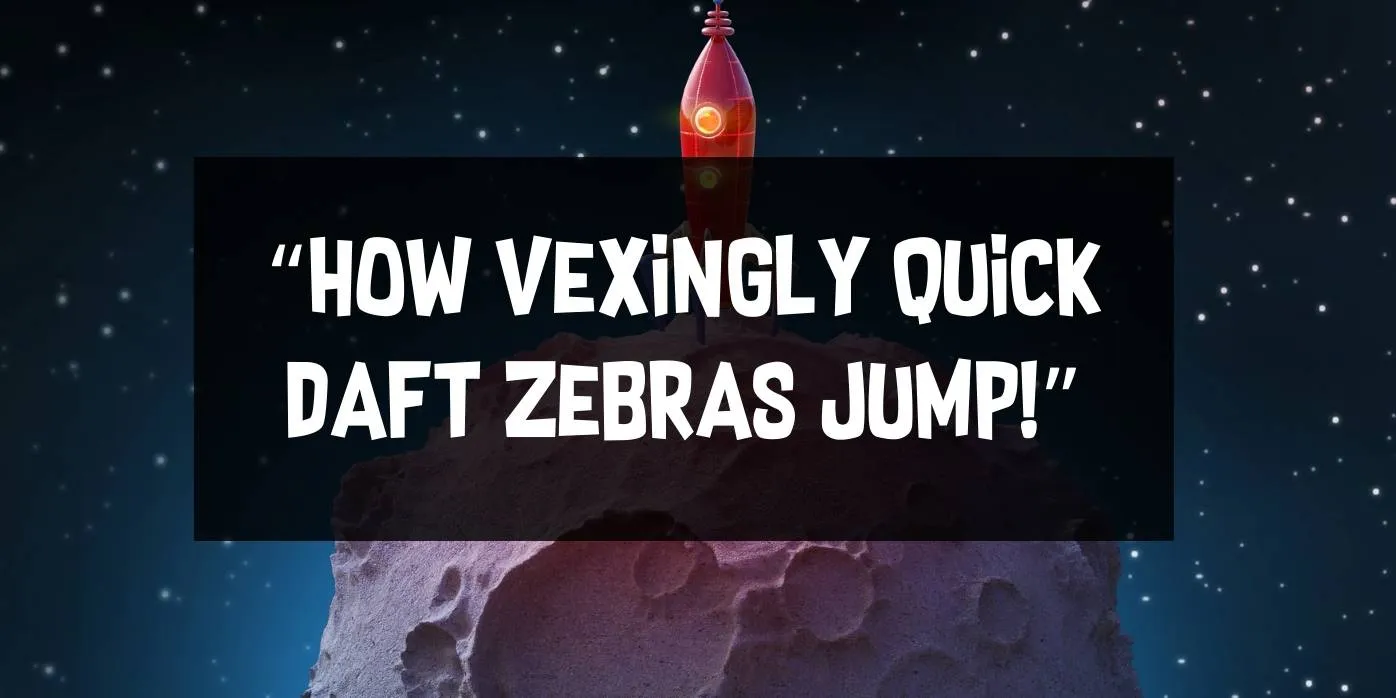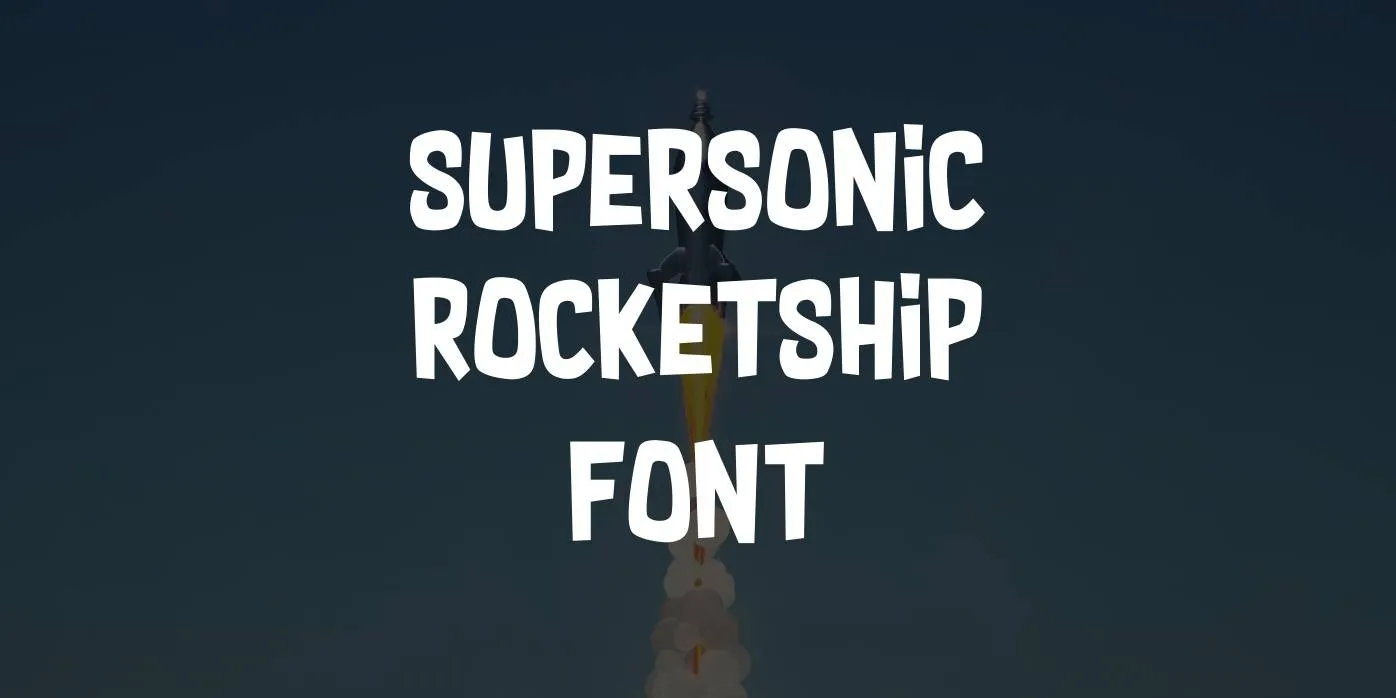
Supersonic Rocketship Font
Supersonic Rocketship Font is very famous in the design market. It belongs to the Fancy font family. This stunning typeface was designed by Imagex. In the 20th century, this awesome font family was released to the general public.
This awesome typeface got popular since its release. This classy typeface comes in more than 132 popular and attractive characters. These characters are both uppercase and lowercase, symbols, and icons. This cute font family is best for different interesting designs.
Because of its support in all international languages this typeface is popular all over the world. It is well specified by the CSS Family. This cute font also provides a tool generator for the conversion of various text designs to colorful graphic designs. Obelix pro font is very similar to this cozy typeface and works in a similar manner.